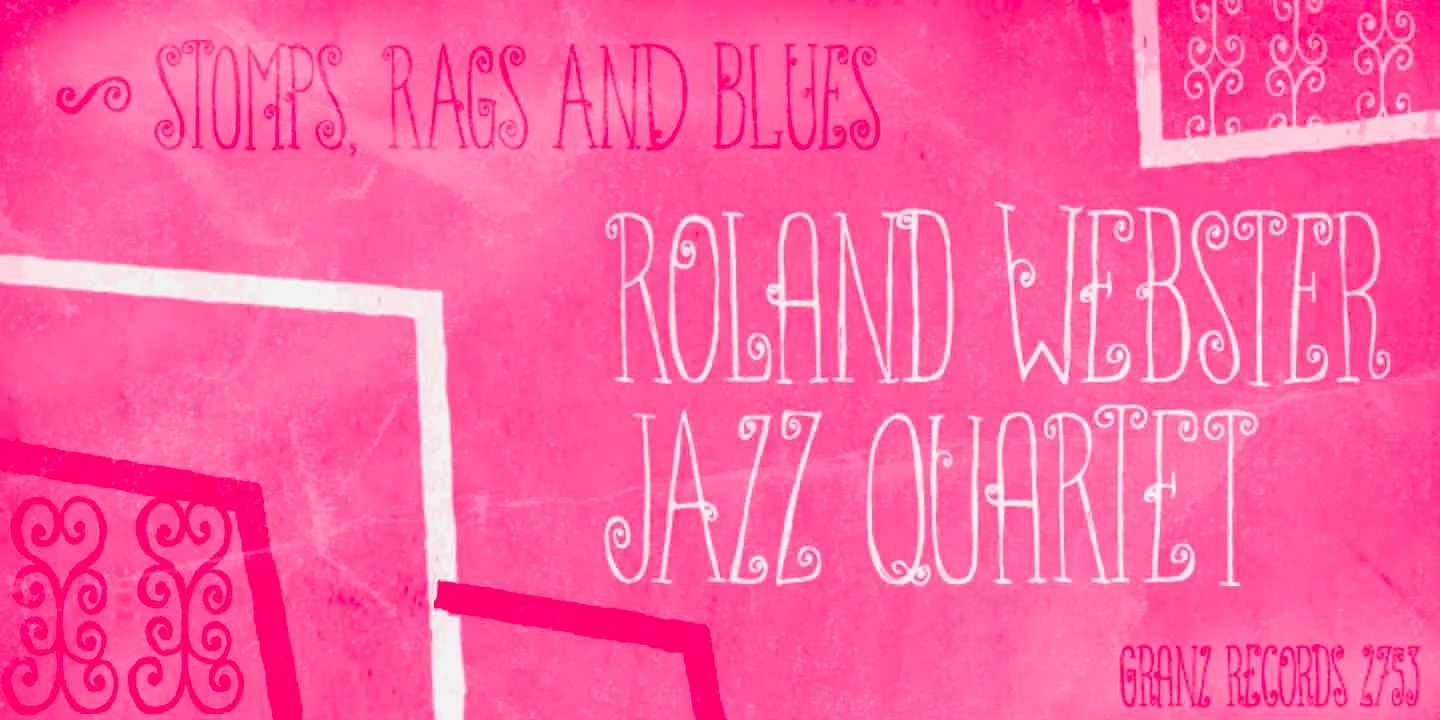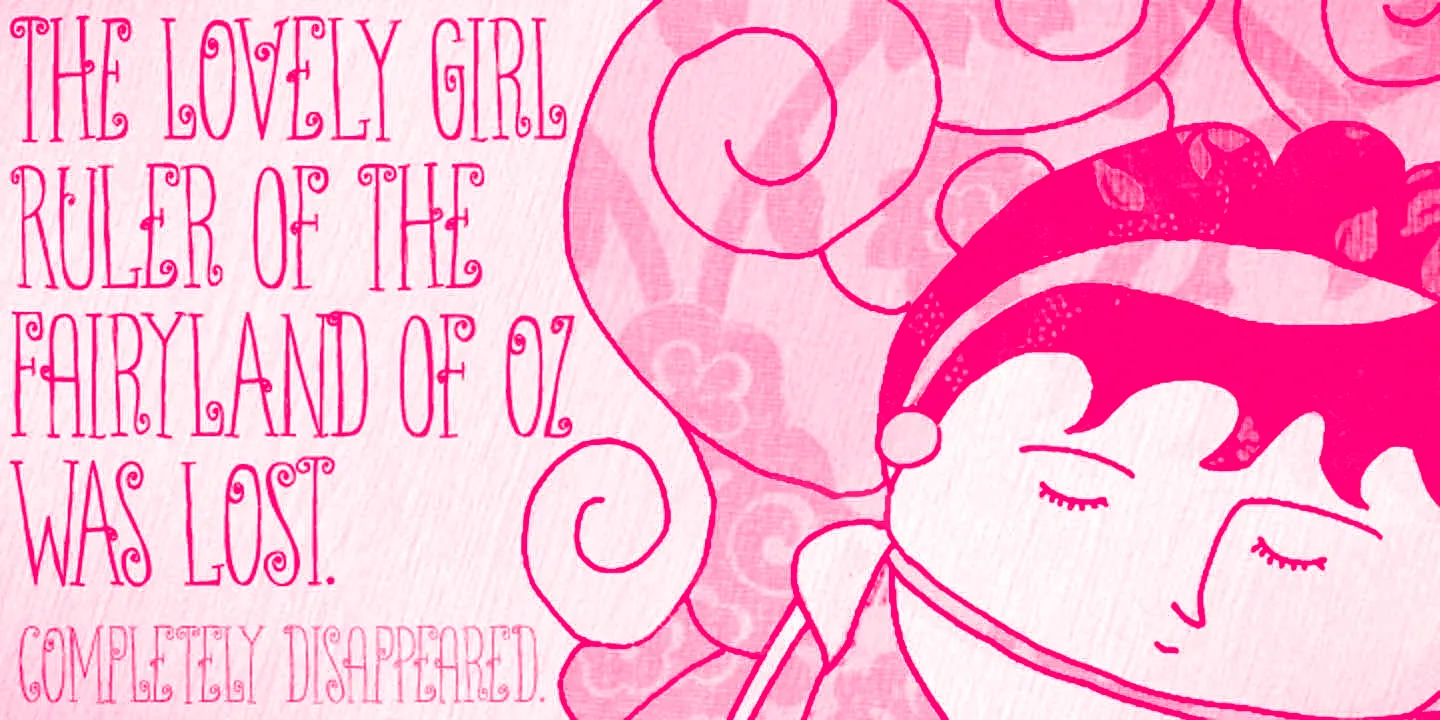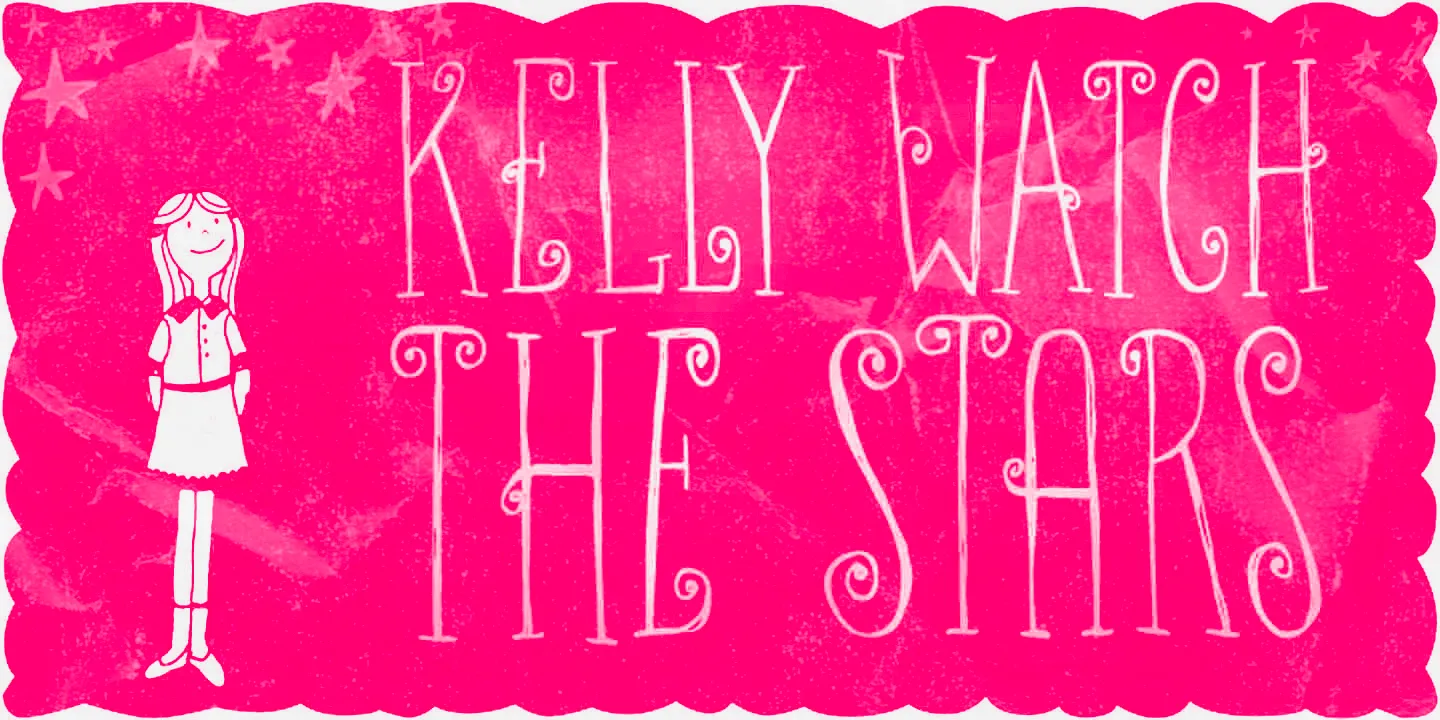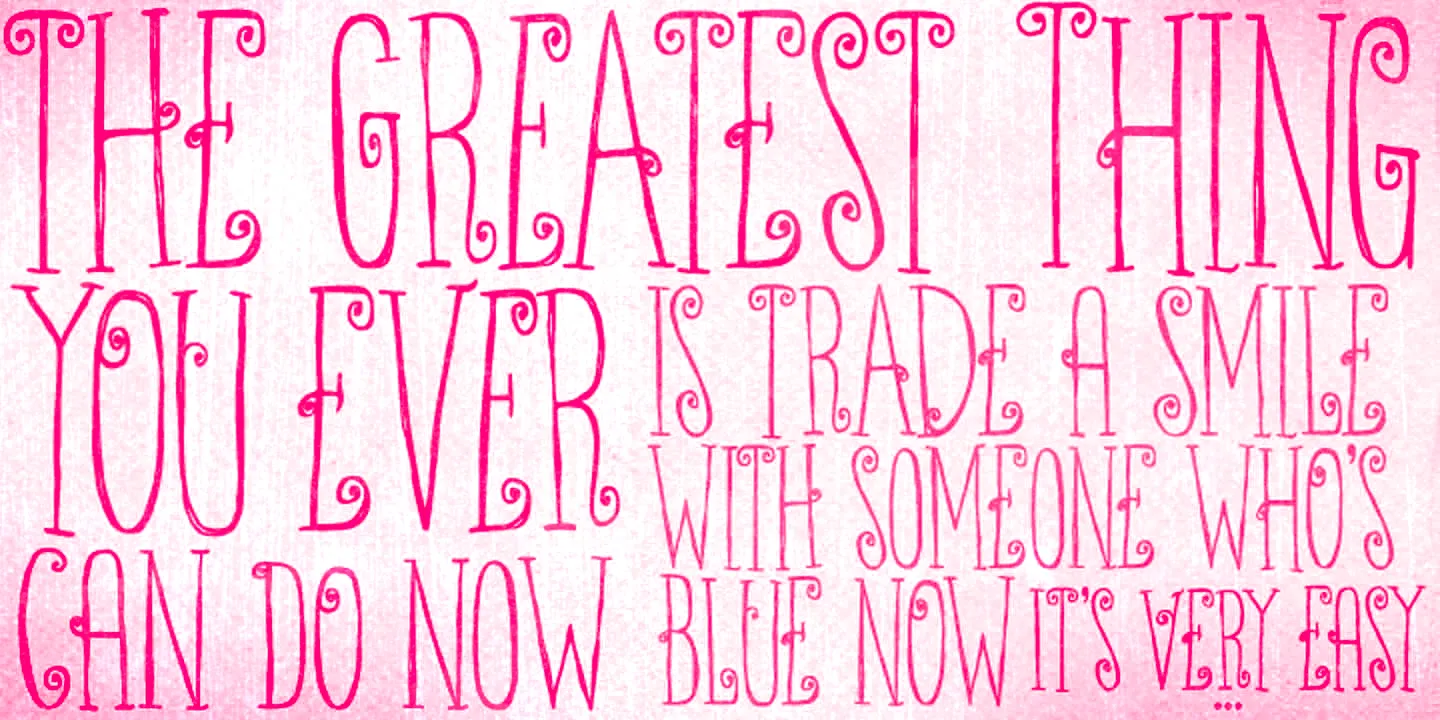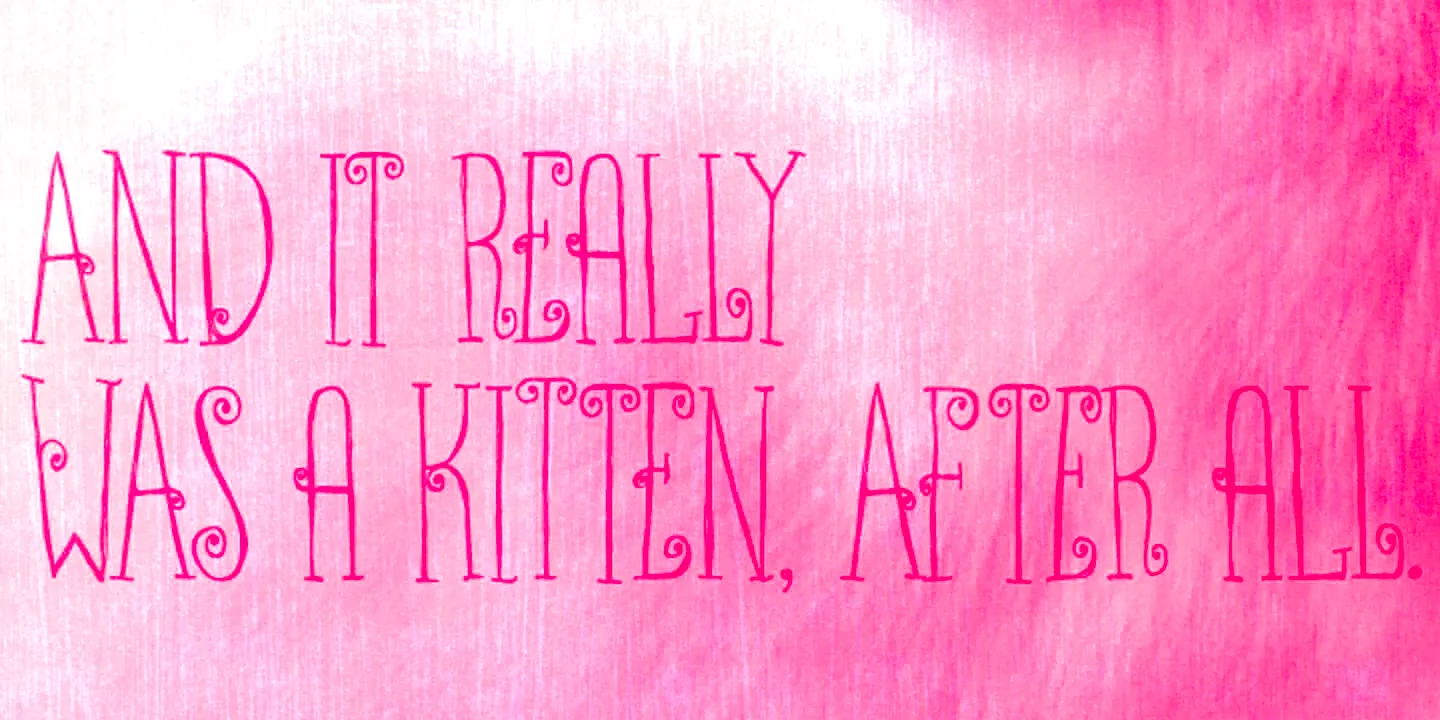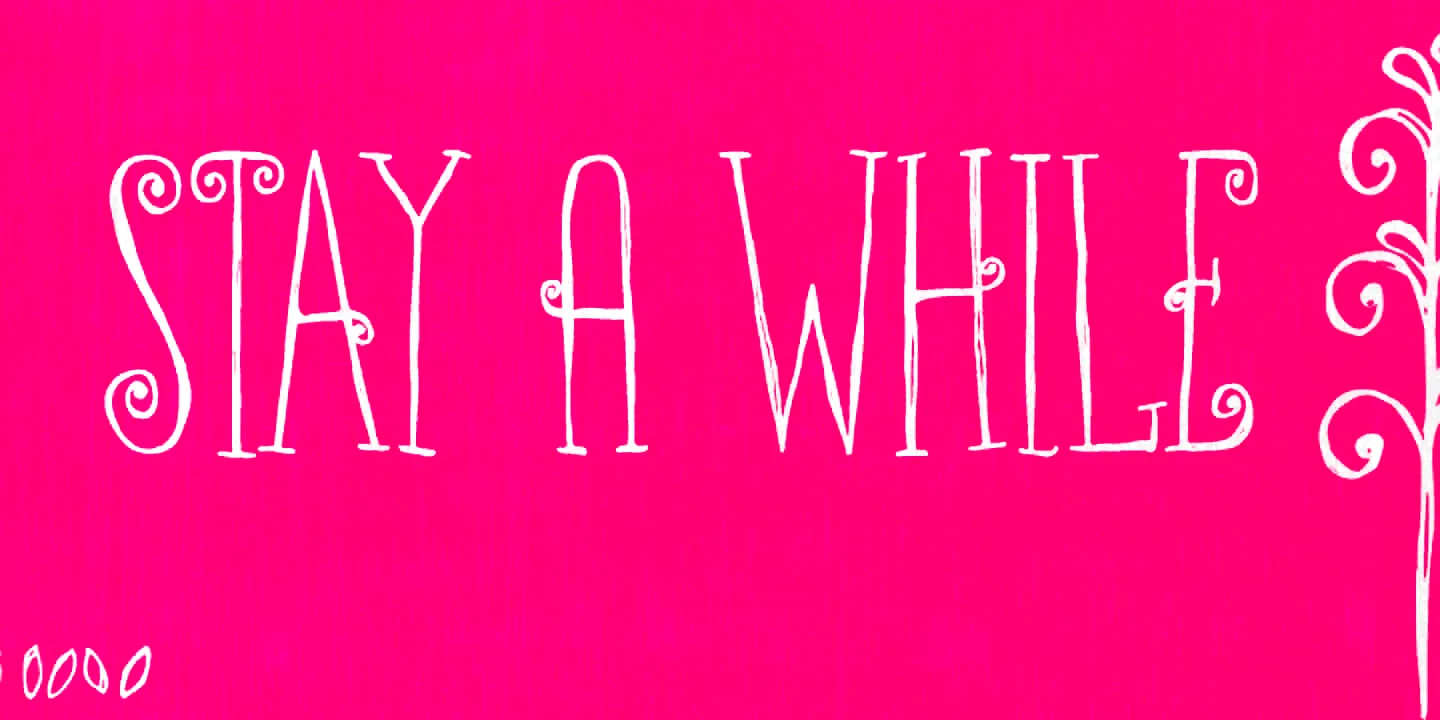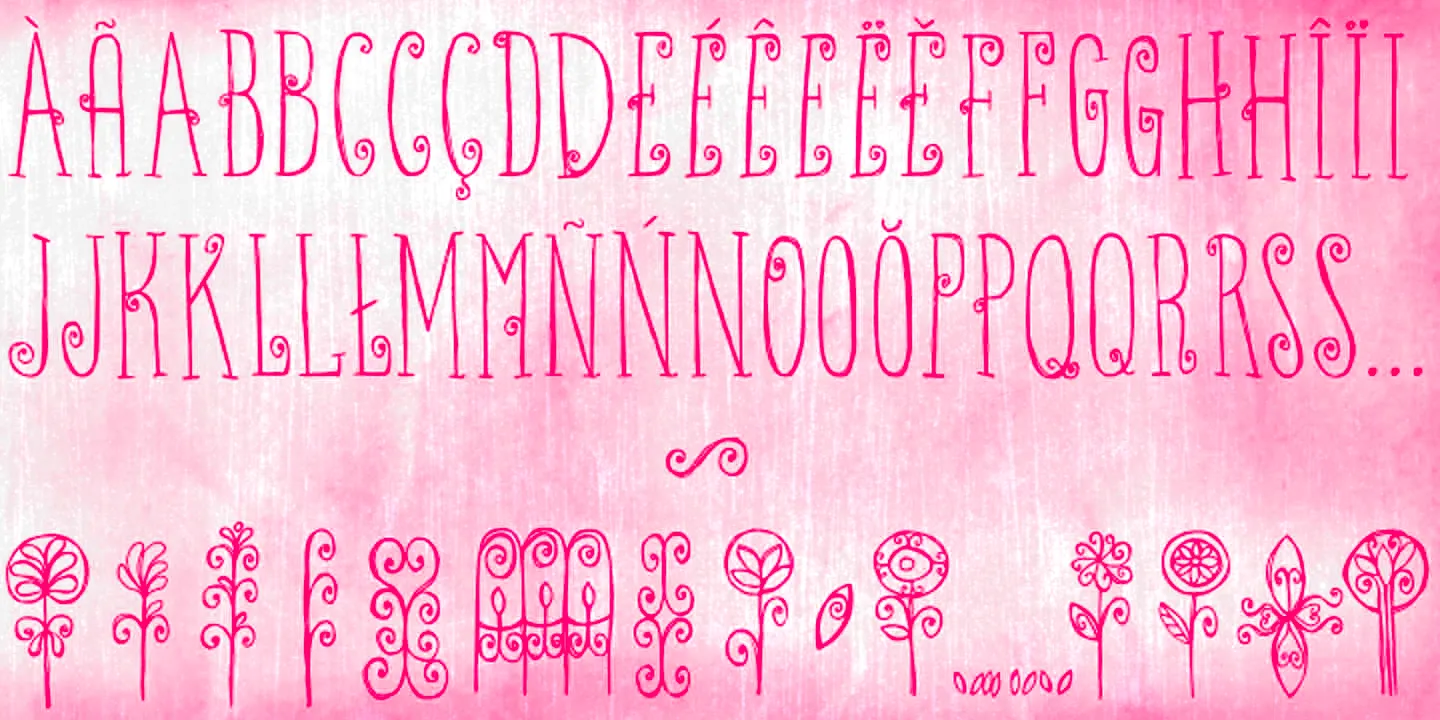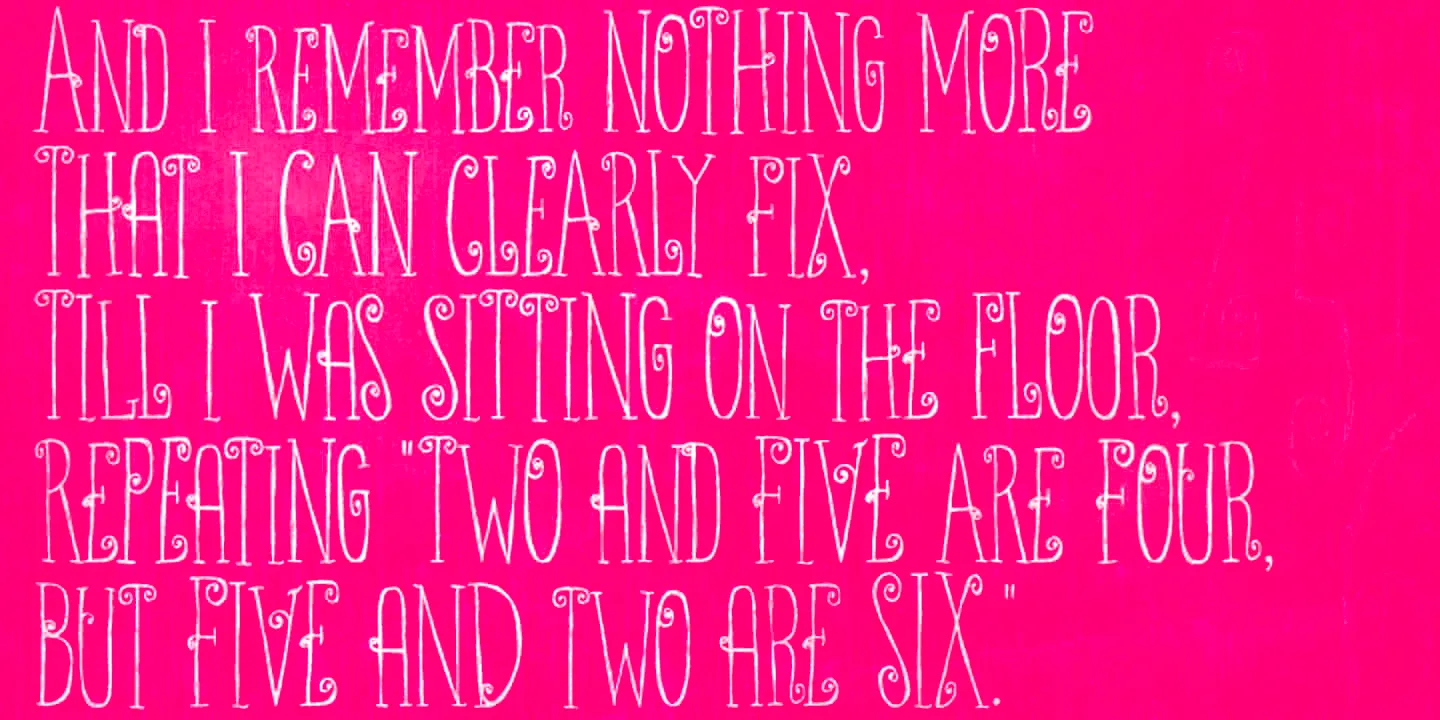
Ritornelos Fonts
Ritornelos
Ritornelos is a lively all-caps hand-drawn typeface. Condensed and quirky with serifs and swirls, it dances with ornate energy and lyrical detail, particularly when the alternates are used. Don’t miss the handy set of ornaments to add extra charm! Each character feels lovingly crafted — perfect for adding a touch of drama, elegance, or playful nostalgia. Whether used for book covers, boutique branding, or decorative headlines, Ritornelos turns every word into a performance.